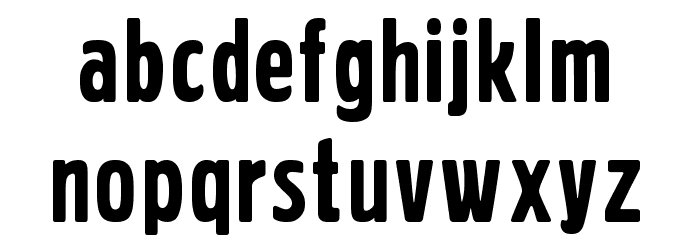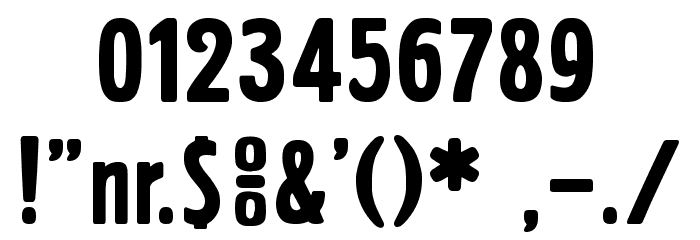
Prager Headlines Font
This font features bold, rounded characters with a strong presence, making it ideal for attention-grabbing headlines. The uppercase letters are slightly taller than average, providing a commanding look, while the lowercase letters maintain a consistent height, ensuring readability. The numerals are clear and distinct, with a uniform width that complements the overall design. Special characters are well-defined, adding versatility to the font's usage. The strokes are consistent in thickness, offering a balanced and cohesive appearance.
A bold, rounded font perfect for impactful headlines.
- Font: Prager Headlines
- Proposed Projects: Ideal for headlines, posters, advertising materials, and branding projects where a strong visual impact is desired.